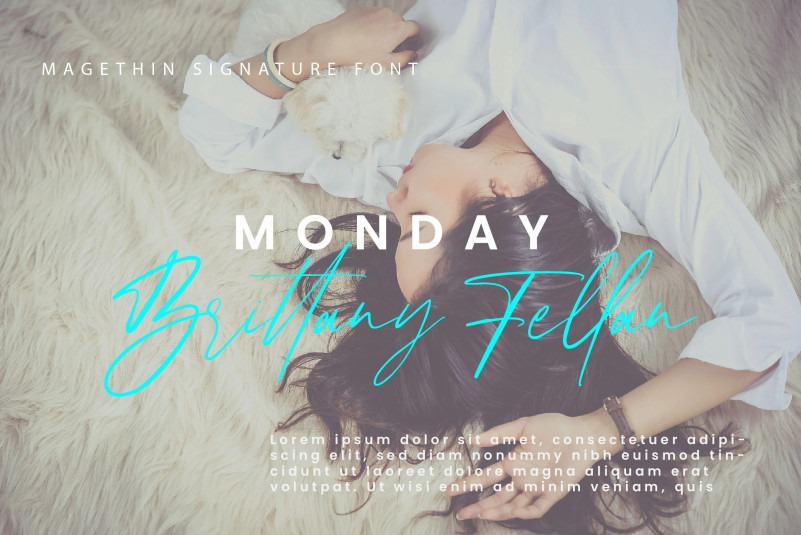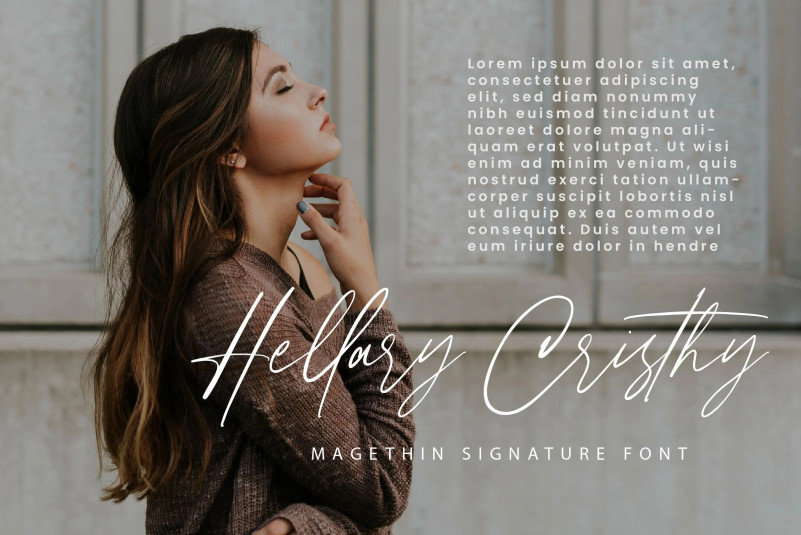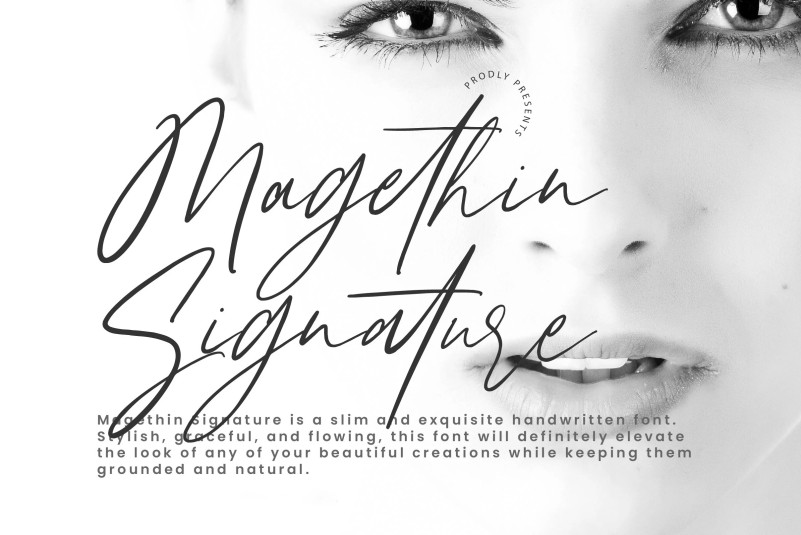
Magethin Signature Font
Magethin Signature Font is a sweet, whimsical, flowing and thin script font. Featuring characters that dance along the baseline, this font will add a luxury spark to any design project that you wish to create!